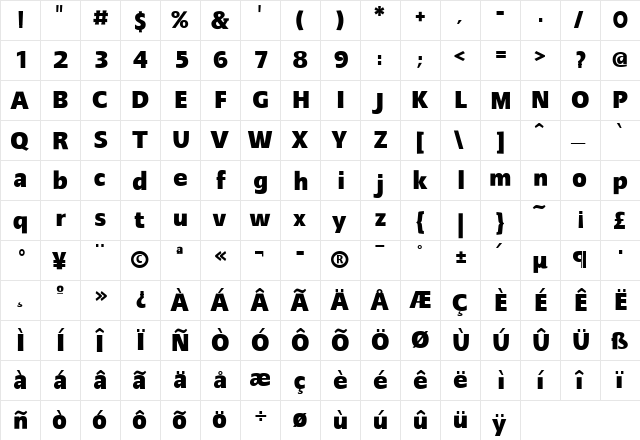
AIQuanta Black
Design Context for AIQuanta Typeface
AIQuanta is a composed and adaptable typeface that performs quietly and consistently across a wide range of design contexts.